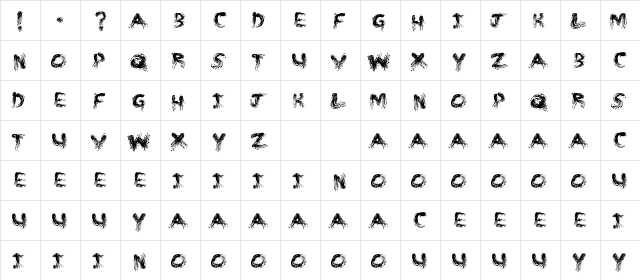
MM STROKES Regular
| Designer | Marcus Melton Design |
Design Context for MM STROKES Typeface
MM STROKES is a composed and adaptable typeface that performs quietly and consistently across a wide range of design contexts.